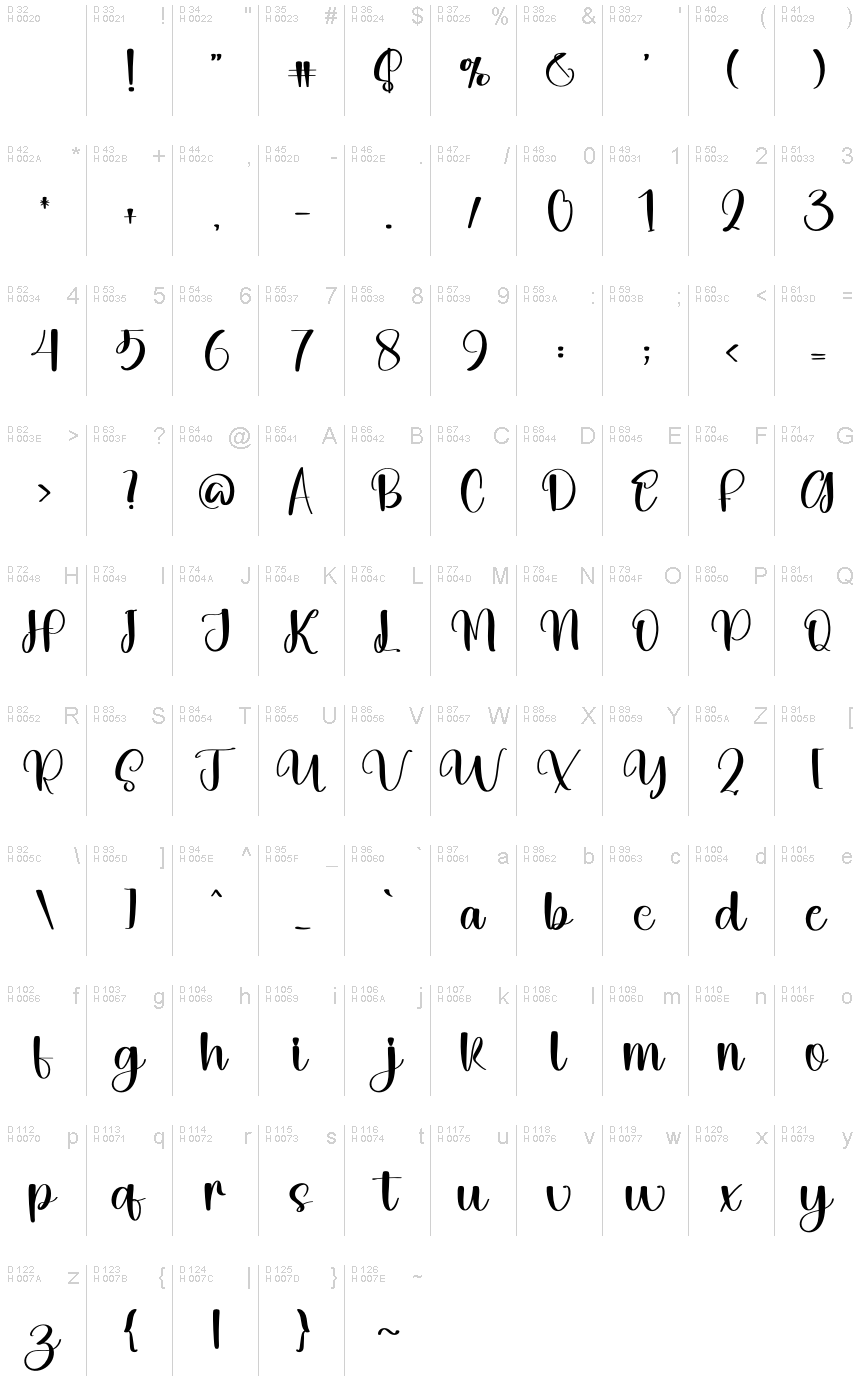
Merry Christmas
Merry Christmas, a creation by Inermedia Studio, is a handwritten font that embodies the joy and warmth of the holiday season. Its semi-light weight lends a delicate touch to each curve and line, evoking the personal touch of a heartfelt note. This font's aesthetic appeal lies in its fluidity and grace, with characters that dance across the page like festive garlands.
Perfect for holiday cards, seasonal marketing campaigns, or any creative project that calls for a sprinkle of cheer, Merry Christmas ensures your message is wrapped in the comfort of tradition with an elegant twist. The style resonates with those seeking to encapsulate the nostalgia and intimate connection associated with handwritten correspondence.
Embrace this charming typeface to convey messages that resonate long after the snow has melted; Merry Christmas stands as an invitation to celebrate not just a season but all moments worth remembering with fondness.